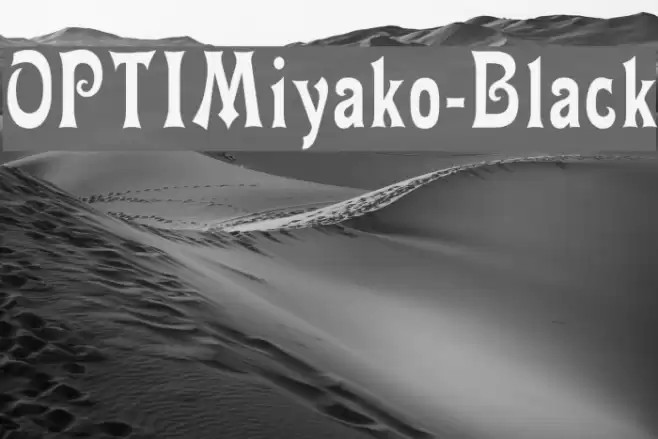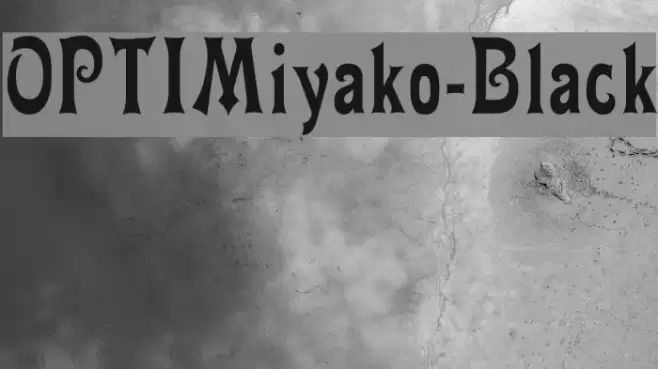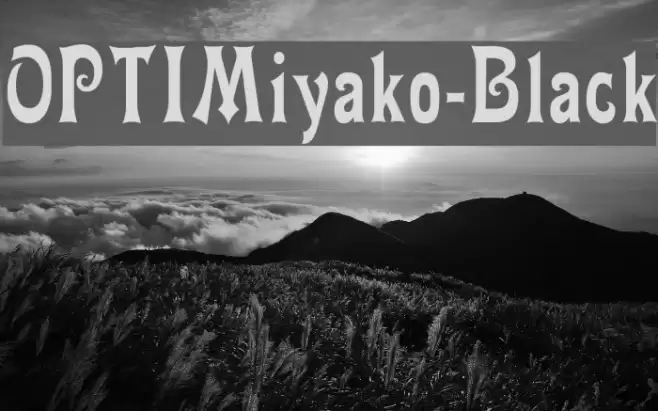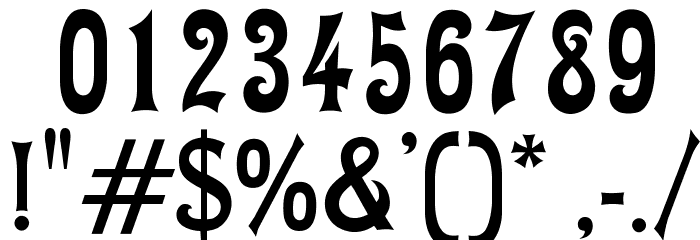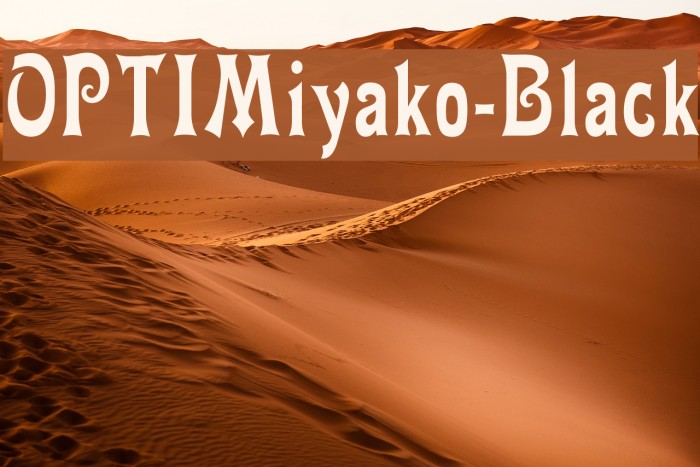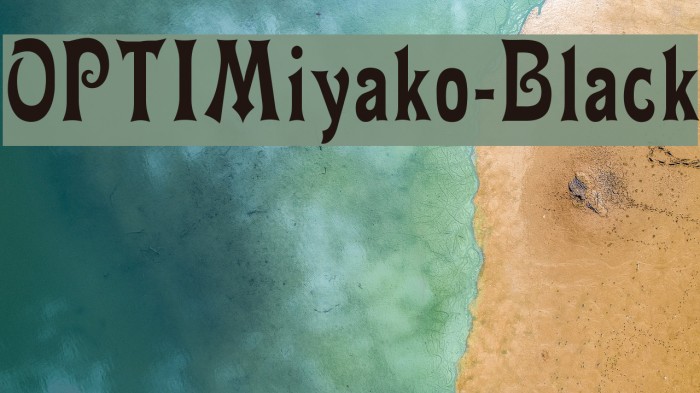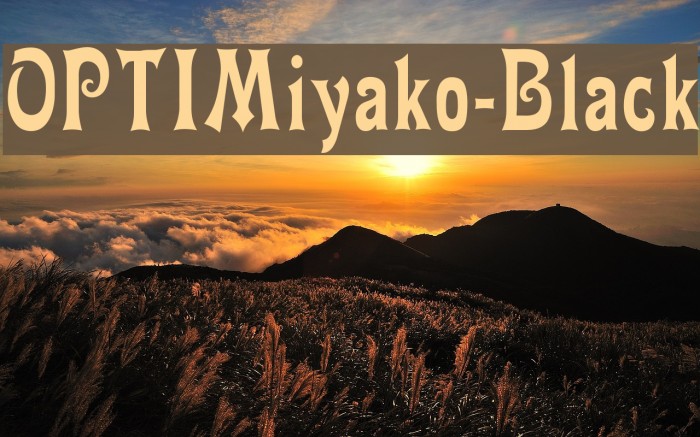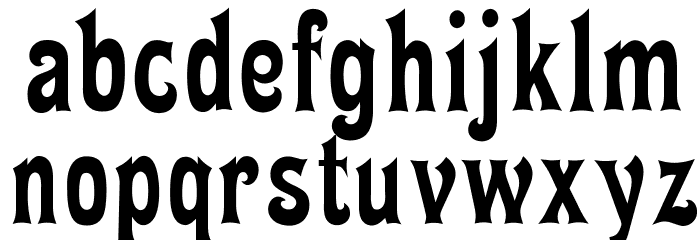
OPTIMiyako-Black Font
OPTIMiyako-Black Description
This font features a bold and dramatic style with a distinct decorative flair. The uppercase letters are characterized by sharp, angular serifs and a slightly condensed form, giving them a strong presence. The lowercase letters maintain a consistent weight, with rounded edges that contrast with the sharpness of the uppercase. The numerals are bold and clear, making them highly legible. Special characters are designed with a similar decorative touch, ensuring cohesion across all glyphs. This font's unique style makes it suitable for projects that require a bold and artistic statement.
A bold, decorative font with sharp serifs and a dramatic style from Uncategorized fonts.
- Proposed Projects: Ideal for posters, branding, headlines, and any project needing a bold, artistic touch.